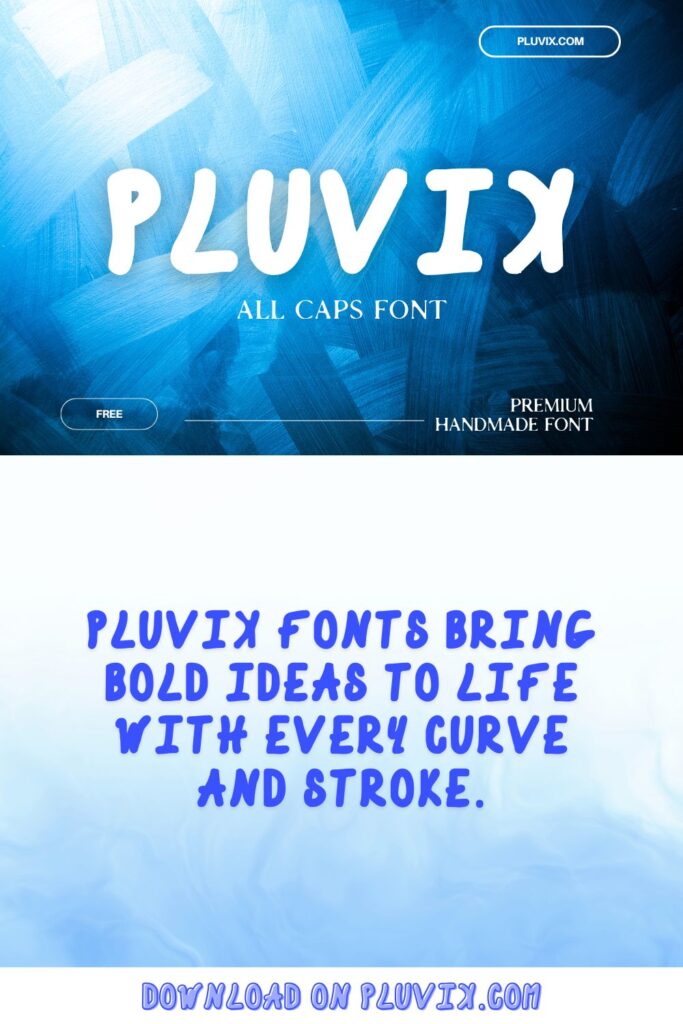
Pluvix Handmade Font is a free and unique font made by Pluvix. It has bold, fun letters that look playful and natural. This handmade style makes it great for adding a personal feel to your designs.
You can use this font for many things like posters, logos, cards, and social media posts. Its friendly and cheerful look helps your work stand out in a simple and fun way. It’s perfect for creative projects that need a happy and relaxed style.